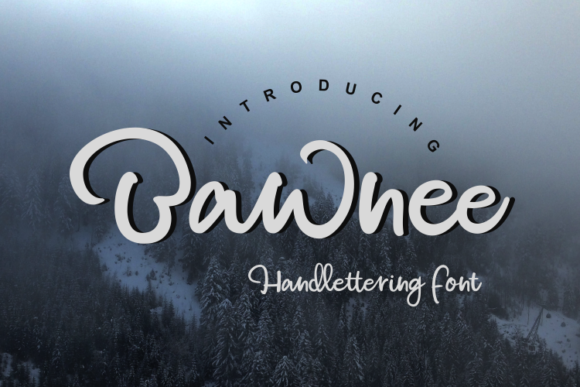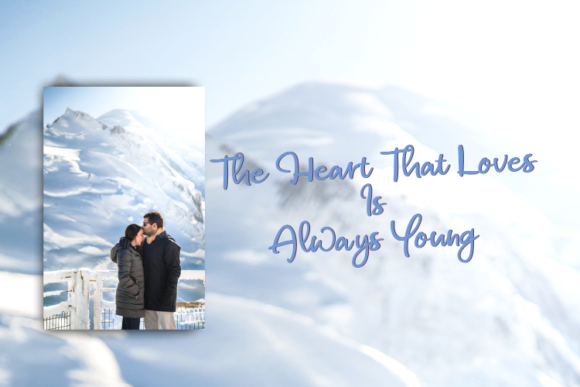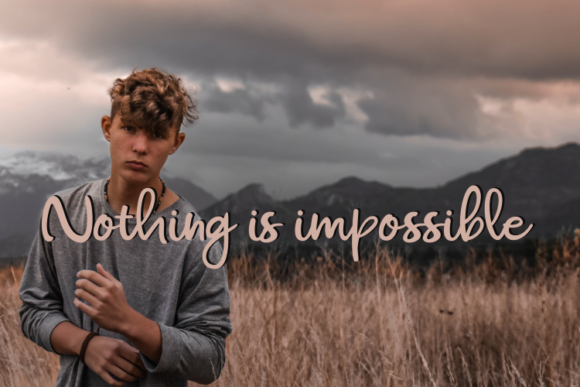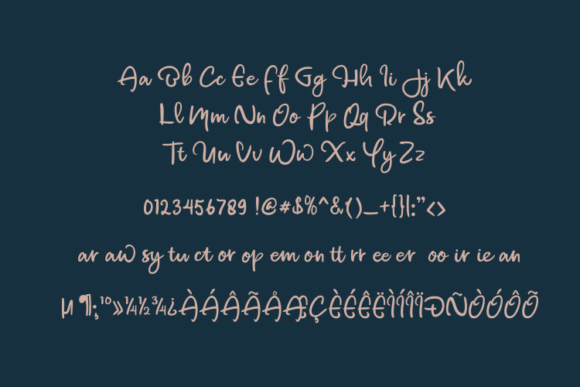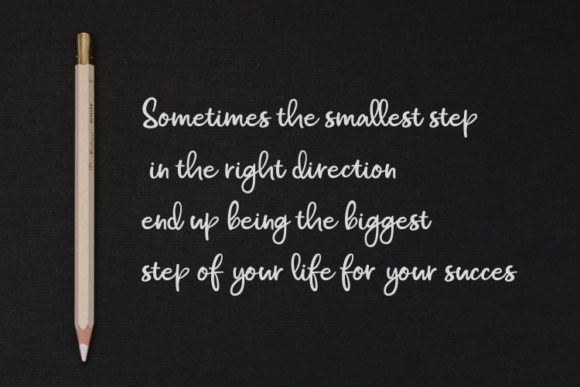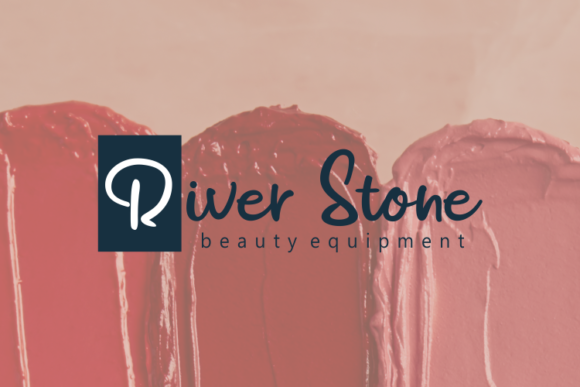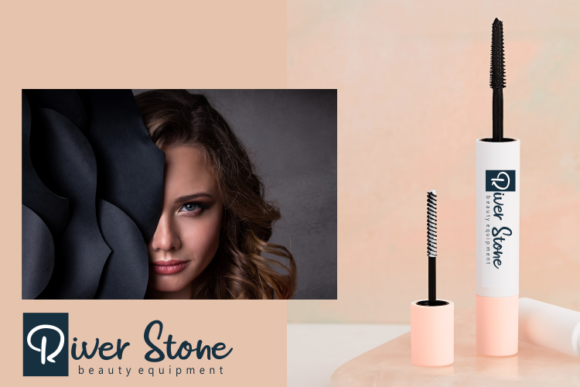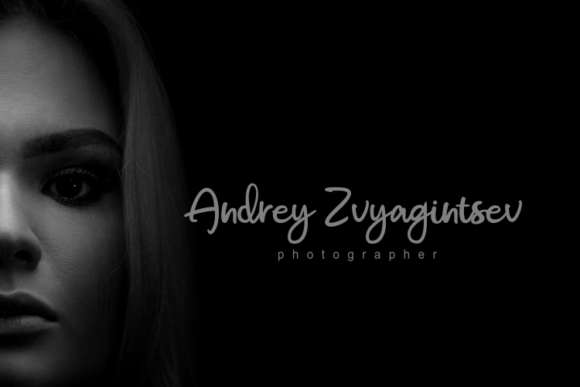
Bawnee Font
About Bawnee Font
Bawnee is a cute and casual handwritten font with an incredibly modern feel. Whether you’re looking for fonts for Instagram or calligraphy scripts for DIY projects, Bawnee will turn any creative idea into a true piece of art!